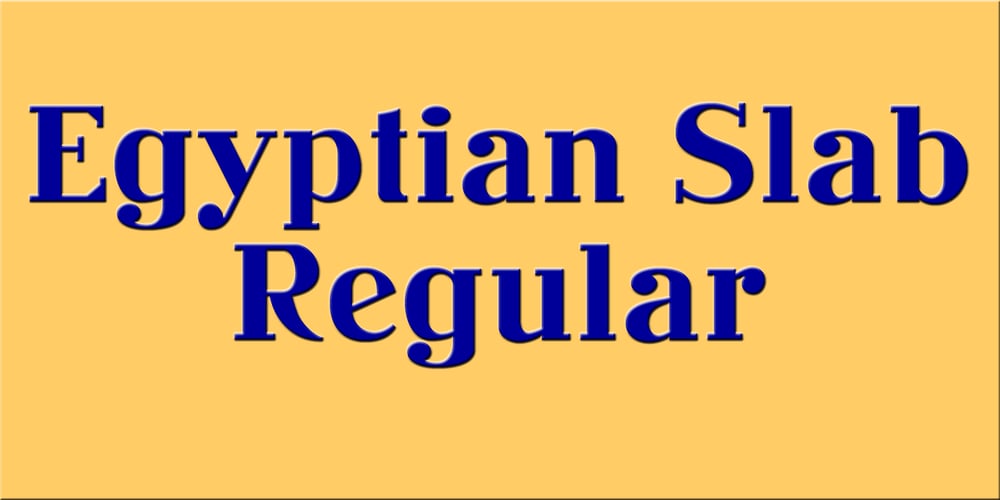
Egyptian Slab
Egyptian Slab font
Egyptian Slab Font Family was designed by Jordan Davies and published by Wooden Type Fonts. Egyptian Slab contains 1 styles and family package options. A revival of one of the popular wooden type fonts of the 19th century, regular, slab serifs, a very useful design for display, upper and lower case.